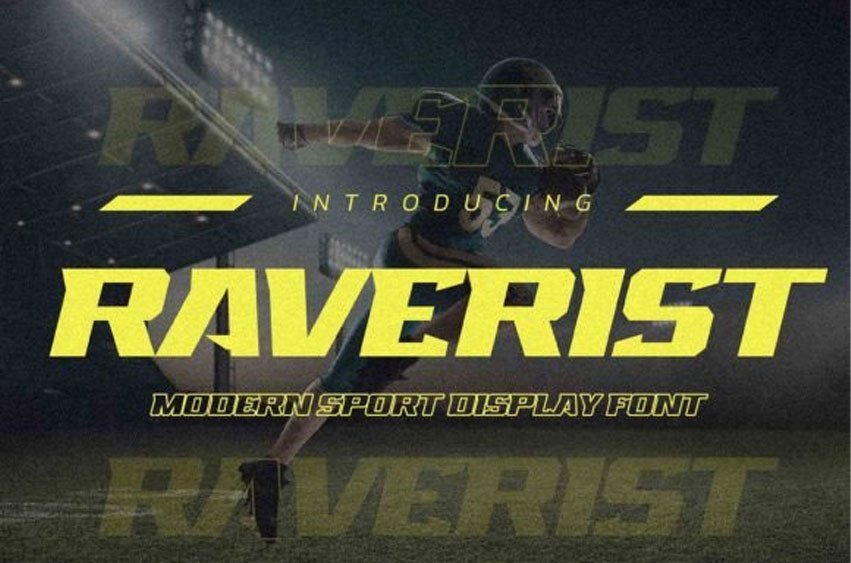
Raverist Font is an incredibly unique and striking display font.
Masterfully designed to become a true favorite, this font has the potential to bring each of your creative ideas to the highest level!